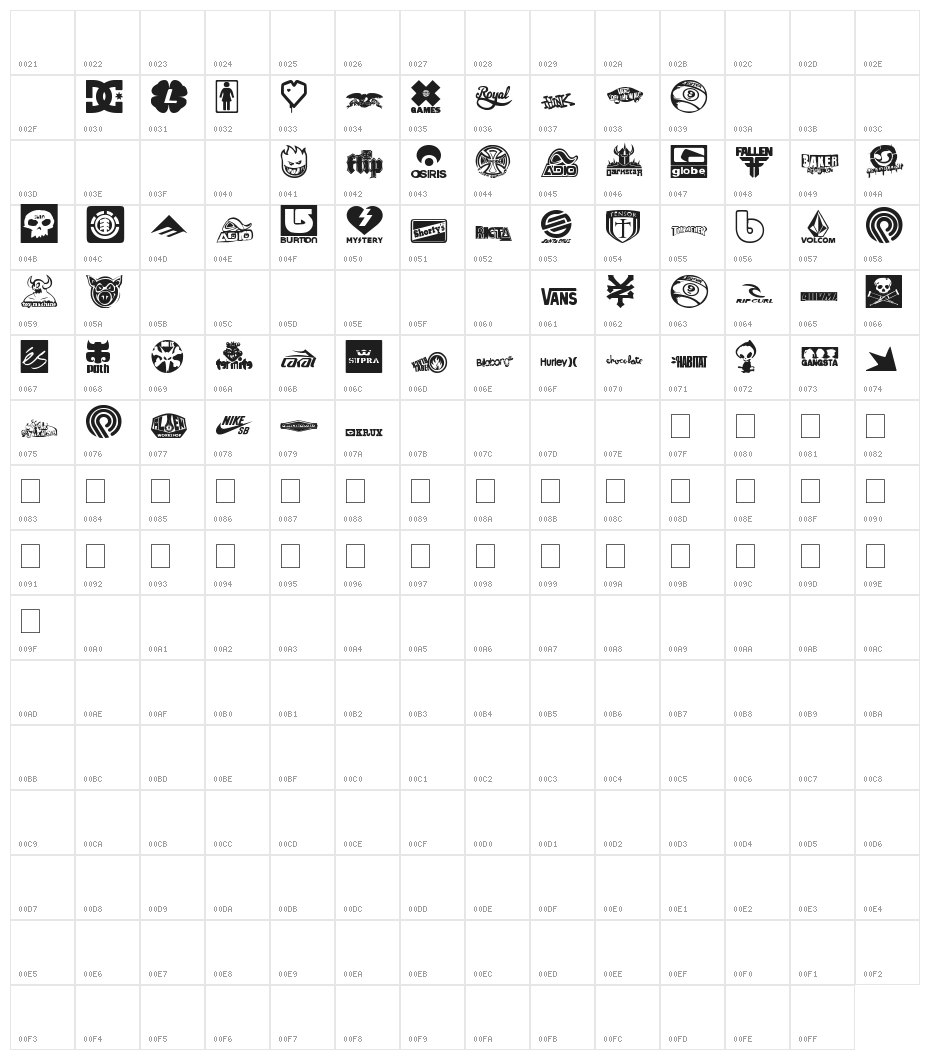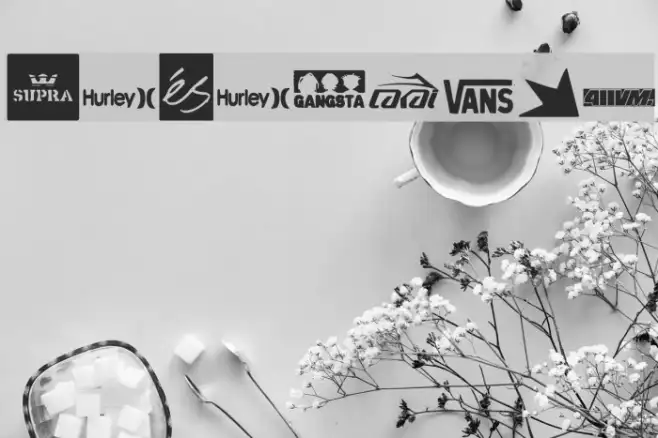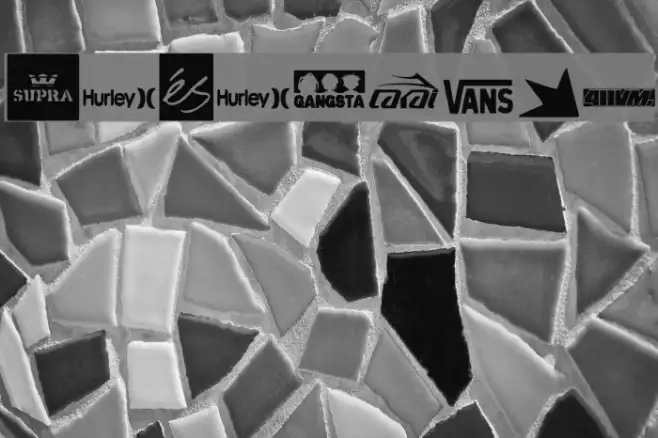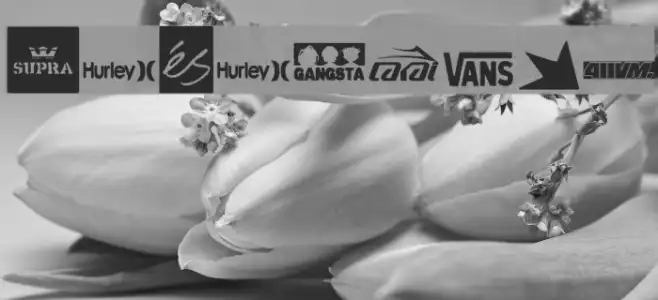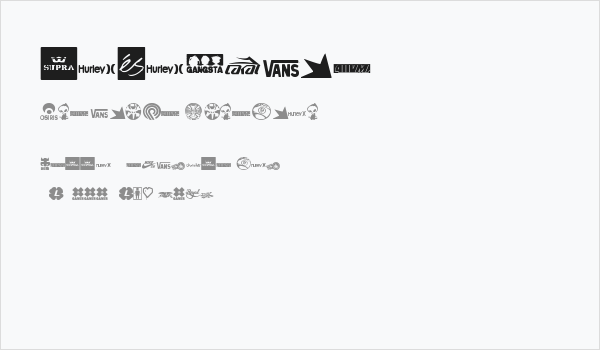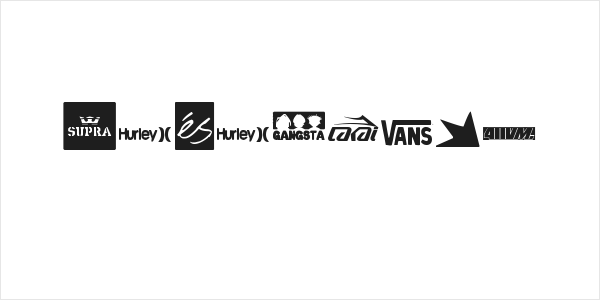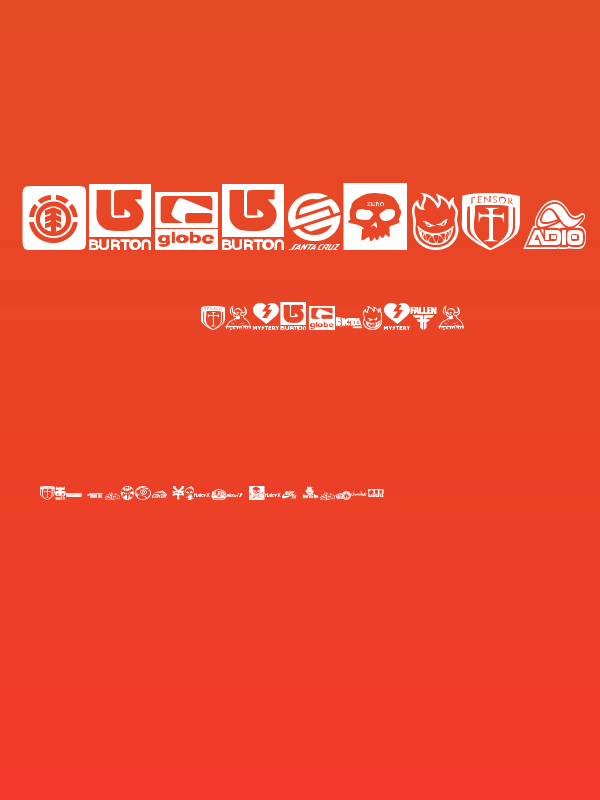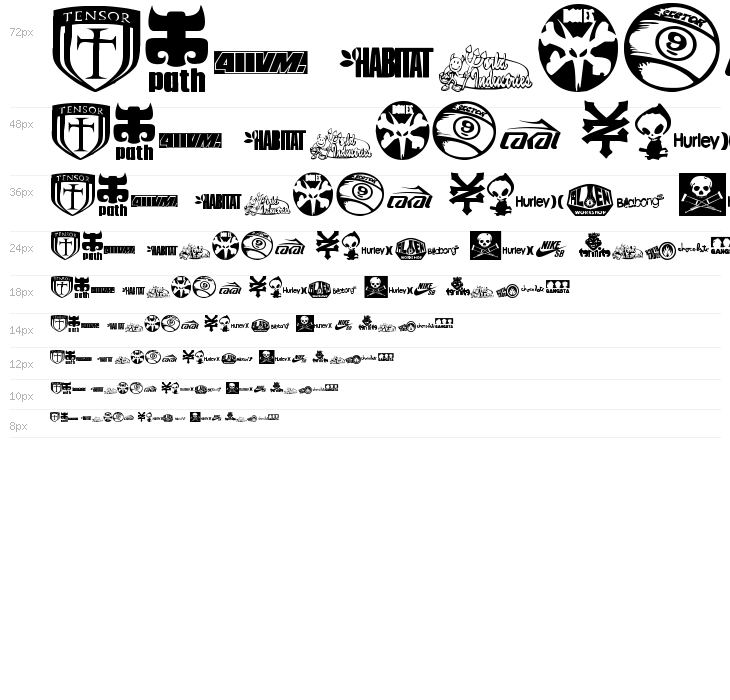
logoskate Font
logoskate Description
A diverse collection of bold, graphic logos primarily used in skateboarding and streetwear branding, featuring a mix of geometric, illustrative, and typographic elements with high visual impact.
| Overall Style | Decorative, Urban, Modern |
| Use Case | Logos, Branding, Merchandise, Stickers |
| Proposed Projects | Branding for skate shops, apparel lines, event promotions, sticker packs, and merchandise. |